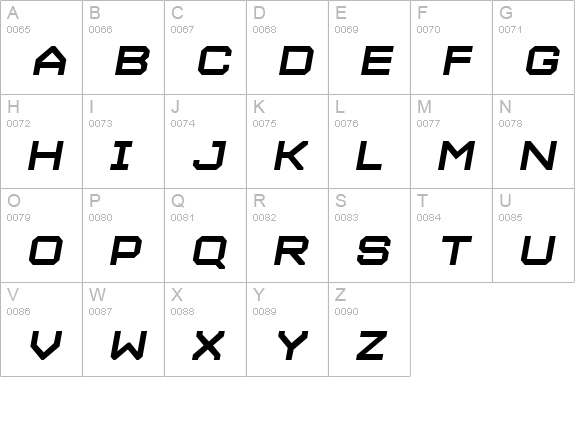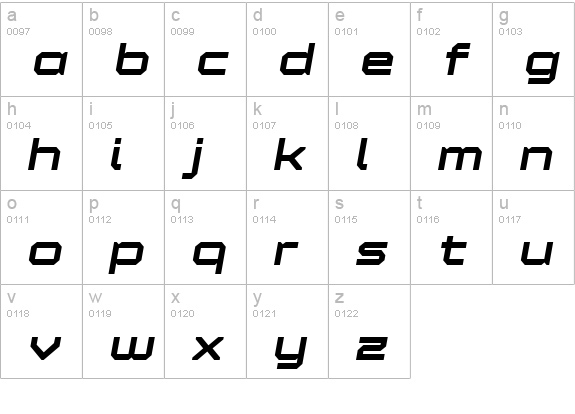
Maetl ExtraBoldOblique font is a striking and bold typeface that exudes confidence and uniqueness. Its oblique slant adds an extra touch of elegance and sophistication to any design project. The sharp angles and clean lines of this font make it perfect for headlines, titles, logos, and branding materials that demand attention. This font is not only visually appealing but also highly versatile. It can effortlessly adapt to a variety of themes and styles, whether it be modern, futuristic, or even retro. Maetl ExtraBoldOblique font commands a strong presence, making it an excellent choice for projects that require a powerful visual impact. What sets this font apart is that it is freely available to download at FontsMarket.com. This means that designers and creatives can access this exceptional font without any cost, making it an ideal option for those on a budget or looking for high-quality resources. The ability to obtain a font of this caliber for free is truly a rarity and a valuable opportunity for designers to enhance their projects without breaking the bank. With its bold and oblique characteristics, Maetl ExtraBoldOblique font offers a contemporary and edgy aesthetic that will elevate any design. Its versatility, combined with its availability as a free download, makes it a must-have for both professional designers and hobbyists alike. Whether used for print or digital projects, Maetl ExtraBoldOblique font is sure to leave a lasting impression.